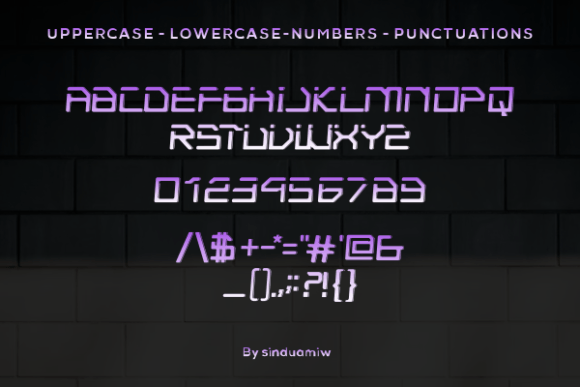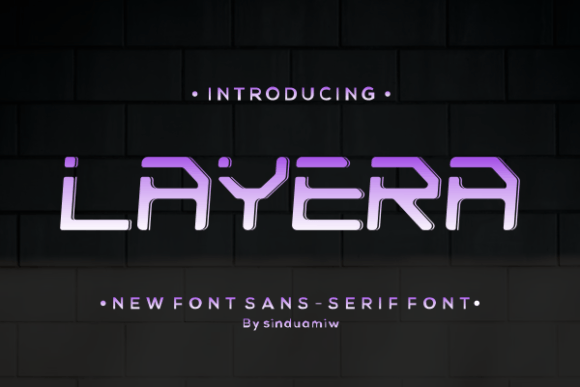
Introduction to Layera Font
Layera is a cool and incredibly interesting display font.
With its unique characters, this font is suitable for a wide range of creative projects .
Key Features of Layera Font